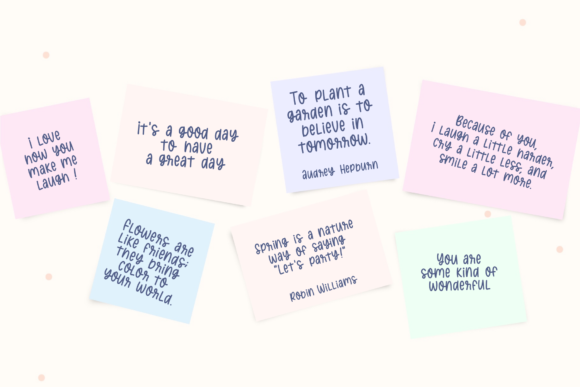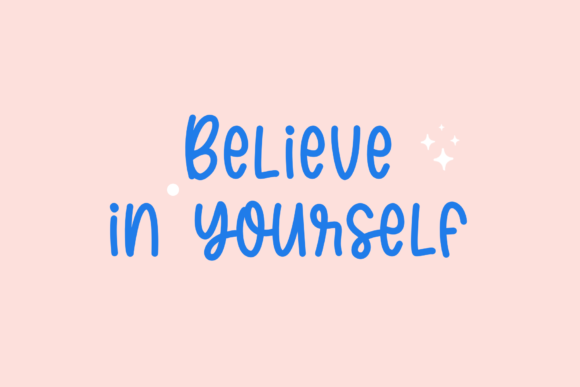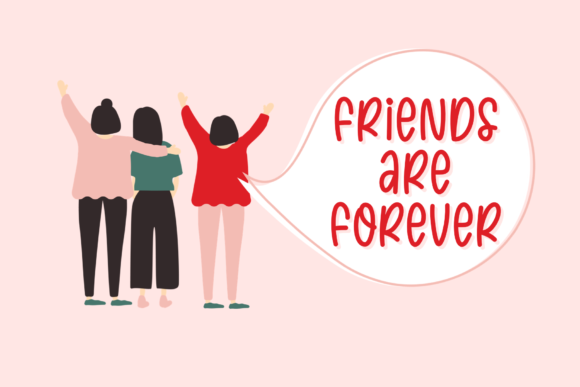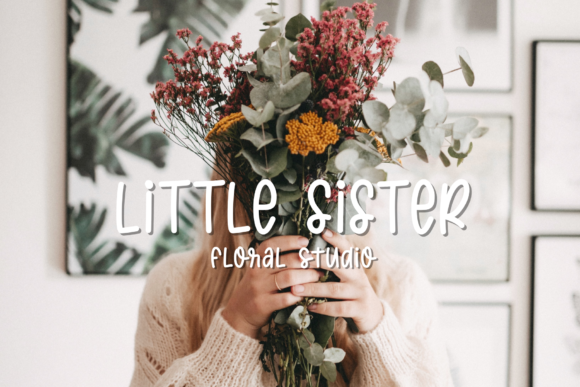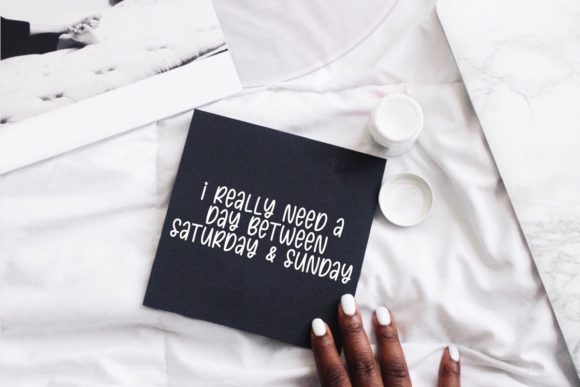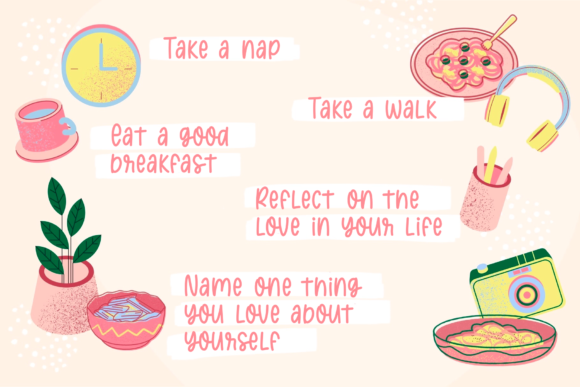
Introduction to Rainbow Heart Font
Remember the moment when you stumble upon the perfect design element that elevates your entire project? For many designers, this happens when they discover a unique and eye-catching font that brings their creative vision to life. For those who have been searching for that special something, we have some exciting news – meet the Rainbow Heart Font, a delightful and whimsical handwritten font that’s sure to brighten up your designs.
As a valuable design resource, the Rainbow Heart Font offers a high-quality, transparent background that seamlessly integrates into any creative project. Its playful and quirky charm makes it a standout choice for designers looking to add a personal touch to their work. Whether you’re working on a digital or print project, this font is sure to be a game-changer. And the best part? It’s available for free download, making it an accessible addition to your design toolkit.
Key Features of Rainbow Heart Font
- Unique, hand-drawn design with a vibrant and colorful aesthetic, perfect for creative projects and design resources.
- Includes a transparent background, allowing for seamless integration into various design elements.
- The Rainbow Heart Font is ideal for Valentine’s Day, love-themed projects, and any other creative project that requires a touch of whimsy and romance.
- Designed to be versatile and adaptable, the font can be used in a variety of contexts, from digital designs to print materials.
Honest Review: Rainbow Heart Font
I recently had the chance to work with the Rainbow Heart Font, and I must say it’s a great addition to any design resource library. This high-quality font is perfect for creative projects that require a touch of whimsy and playfulness.
- What works well: ✨ The Rainbow Heart Font is incredibly versatile and can be used for a variety of design projects, from social media graphics to print materials. Its transparent background makes it easy to use on top of any image or background.
- What works well: ✨ The font is also incredibly easy to use, with a clean and modern design that’s sure to appeal to a wide range of audiences.
However, I did encounter a few limitations during my review. ⚠️ The font can be a bit difficult to read in smaller sizes, and it may not be the best choice for projects that require a lot of text.
Overall, I’m really impressed with the Rainbow Heart Font. It’s a great free download that’s perfect for designers looking to add a little extra flair to their creative projects. With its high-quality design and transparent background, it’s a valuable addition to any design resource library.
Experiment with different font sizes, colors, and styles to create unique and eye-catching designs. Use the transparent background to create a sense of depth and layering in your designs.
The Rainbow Heart Font is perfect for use in social media graphics, wedding invitations, and other creative projects where a touch of whimsy is needed.